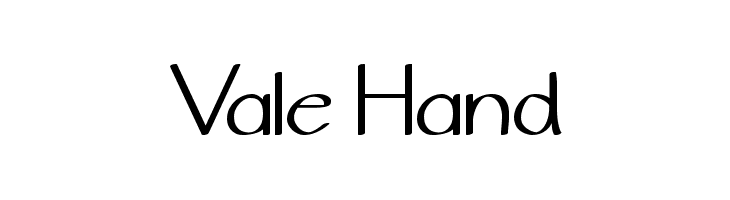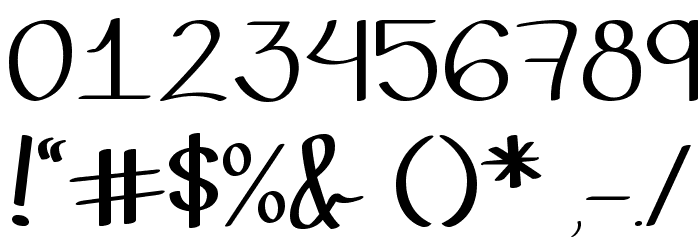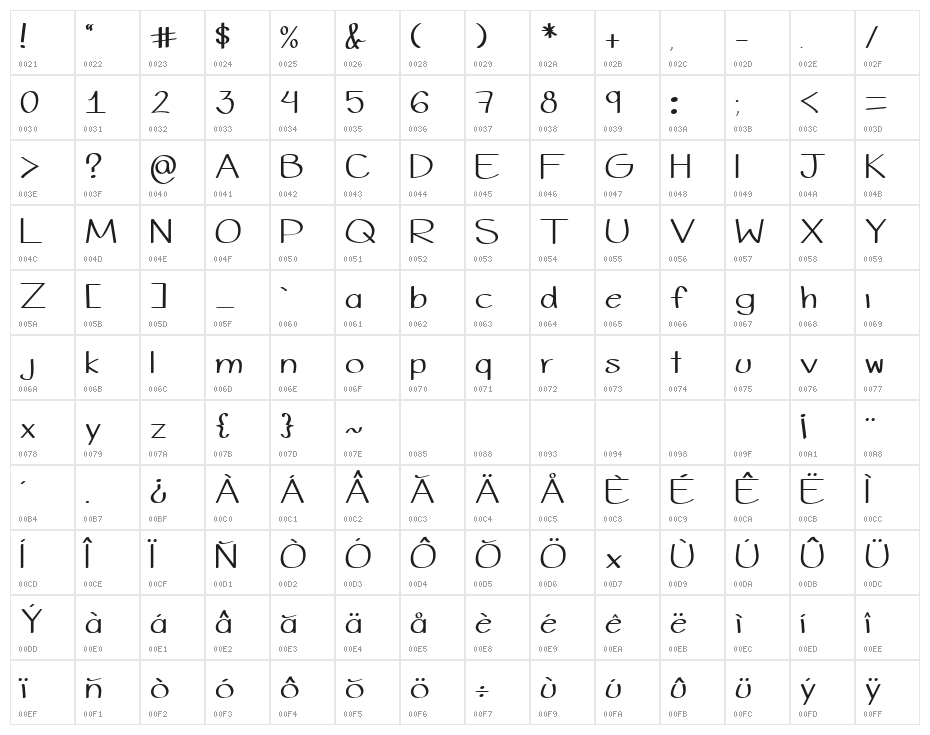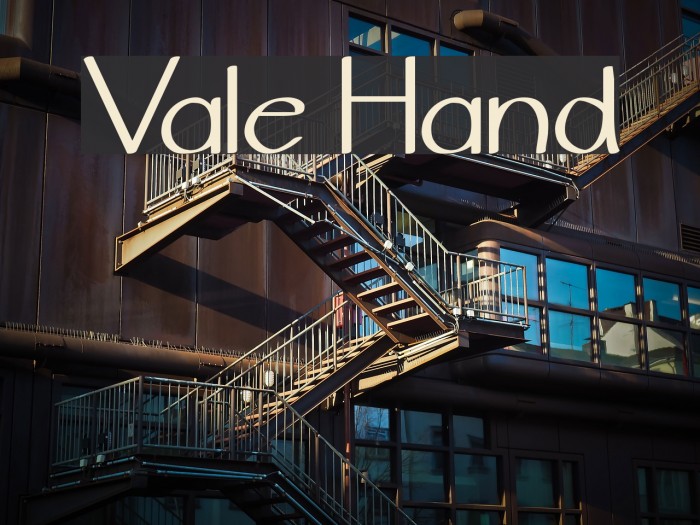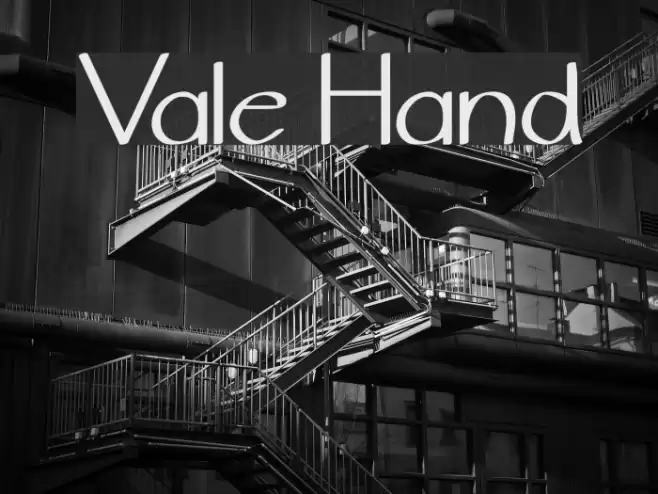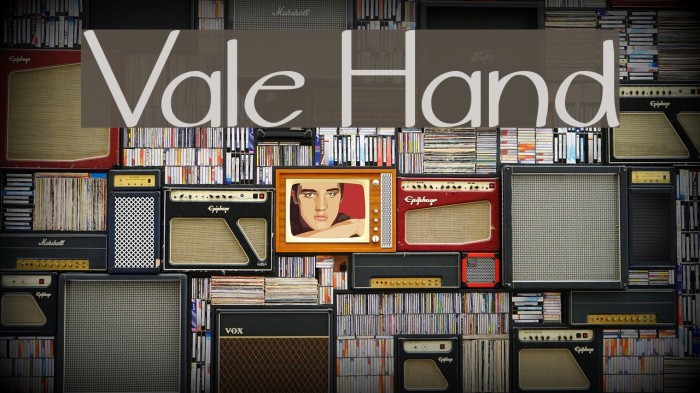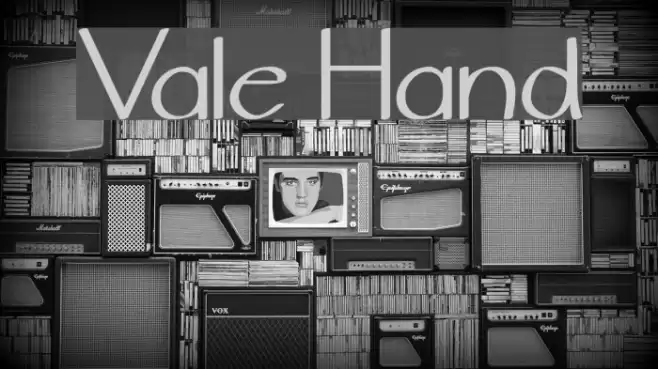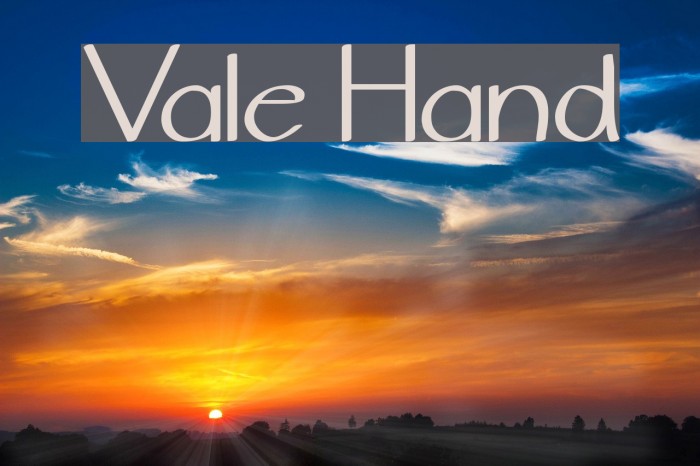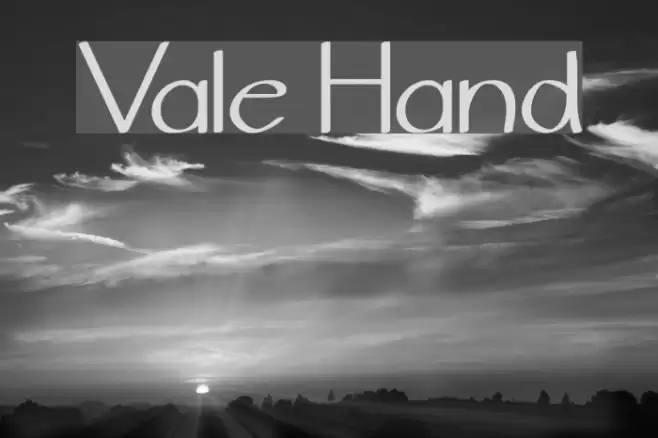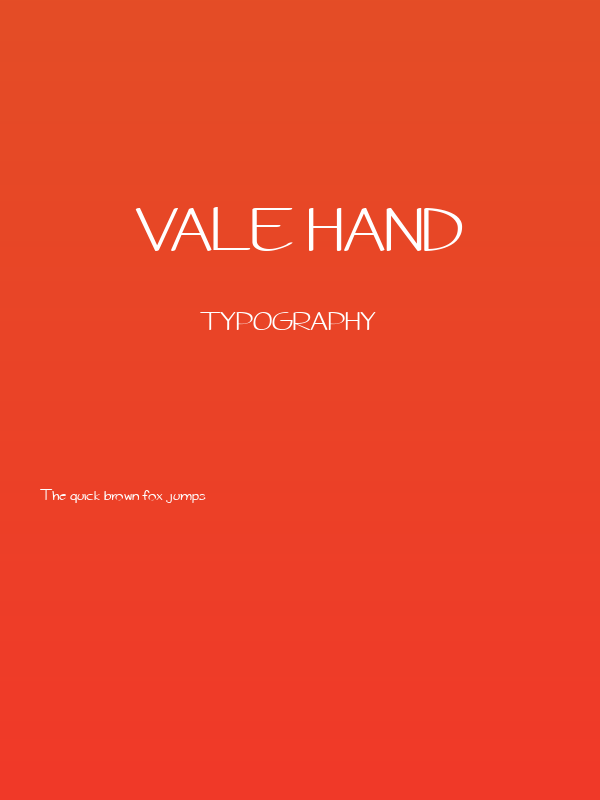
Vale Hand Font
Vale Hand Description
This font features a playful and casual handwritten style, characterized by its smooth curves and slightly irregular strokes that mimic the natural flow of handwriting. The uppercase letters are tall and slender, while the lowercase letters maintain a consistent height, adding to the font's readability. The numbers and special characters follow the same playful aesthetic, making them suitable for a variety of creative applications. The overall appearance is friendly and approachable, making it ideal for projects that require a personal touch.
| Proposed Projects | Ideal for greeting cards, invitations, personal branding, and creative projects that require a friendly and approachable look. |